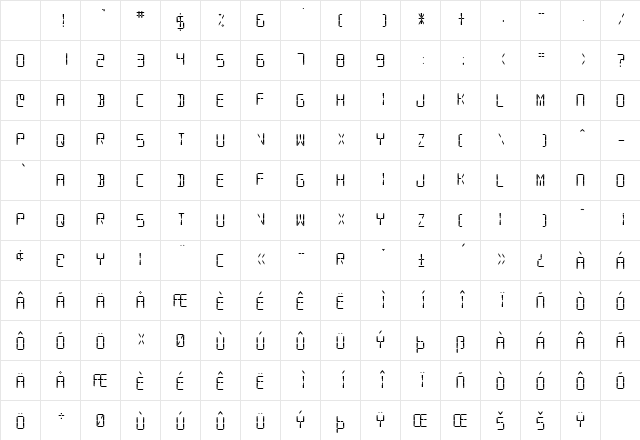
Complete SF Digital Readout Medium glyph index. Displaying only characters natively supported by SF Digital Readout Medium font.
SF Digital Readout has a distinctly futuristic character, with geometric precision and clean angles that feel at home in technology, gaming, and sci-fi contexts.